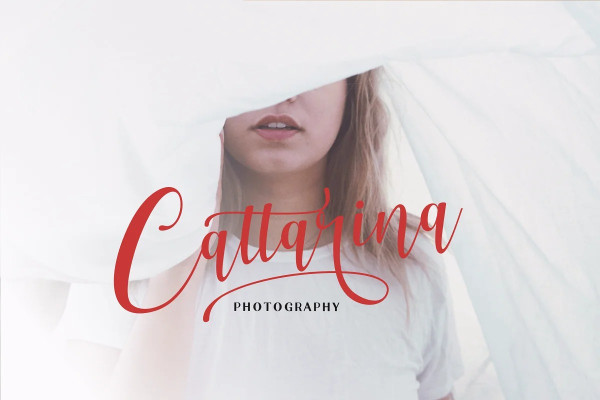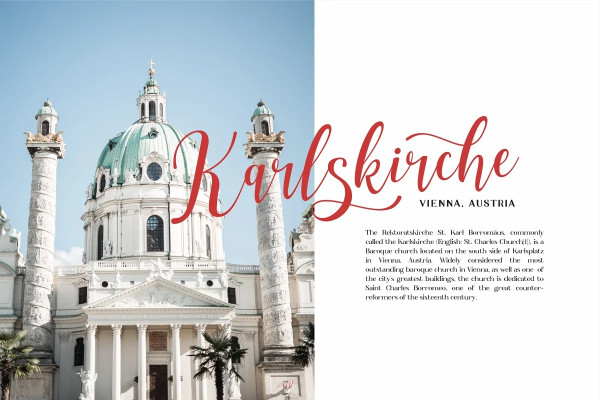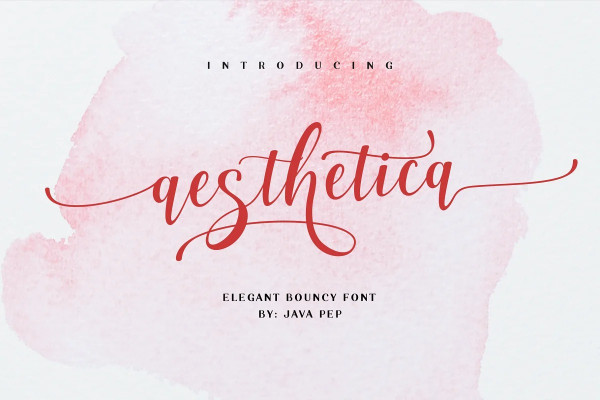
Aesthetica Font
Aesthetica Font is an elegant bouncy font that feels nice, pretty, elegant, and aesthetically pleasing every time a shape is pressed. The Aesthetica font comes with several substitutions, so you can enable for swashes, style substitutions, headers, and finals (SS01-SS02). This font is perfect for logo fonts, branding, greeting cards, cut files for quotes, silhouette font designs, monogram fonts, and more.